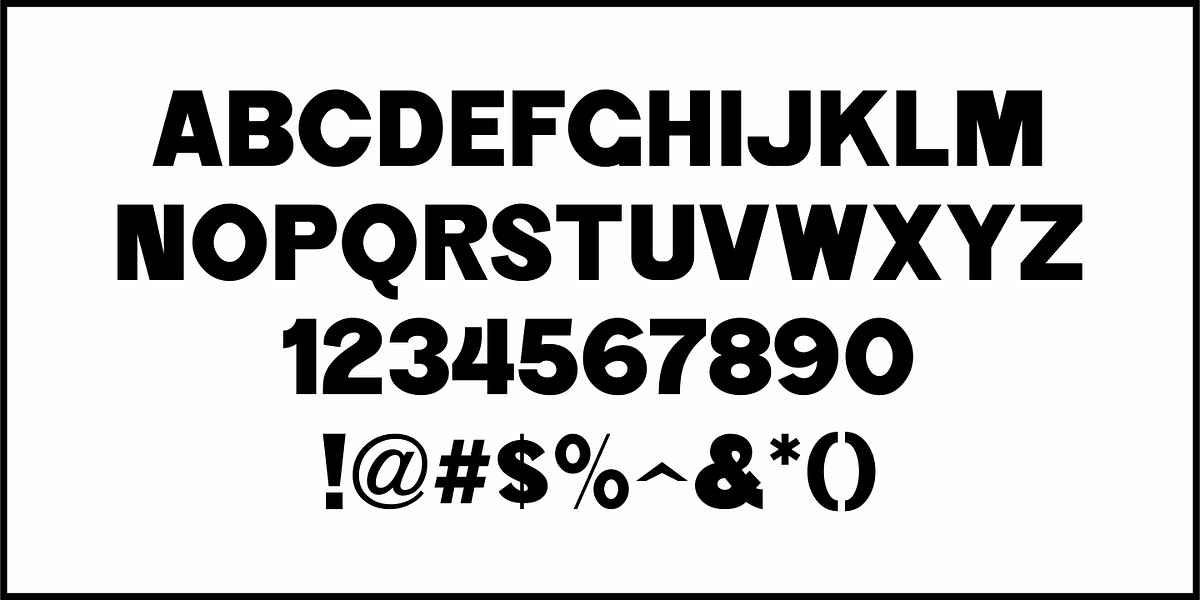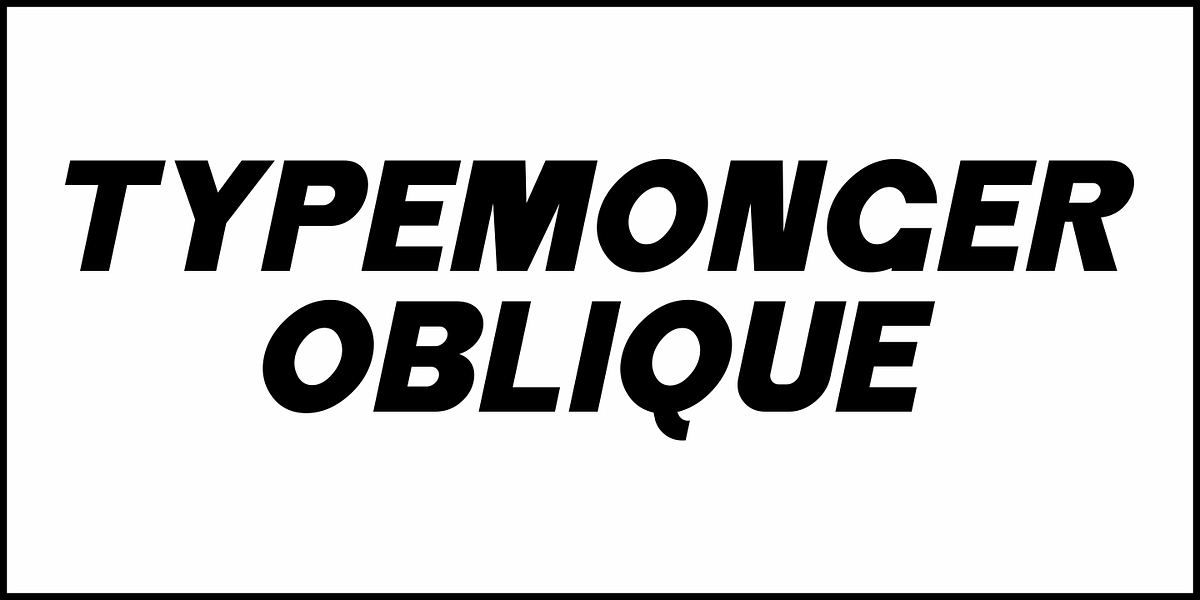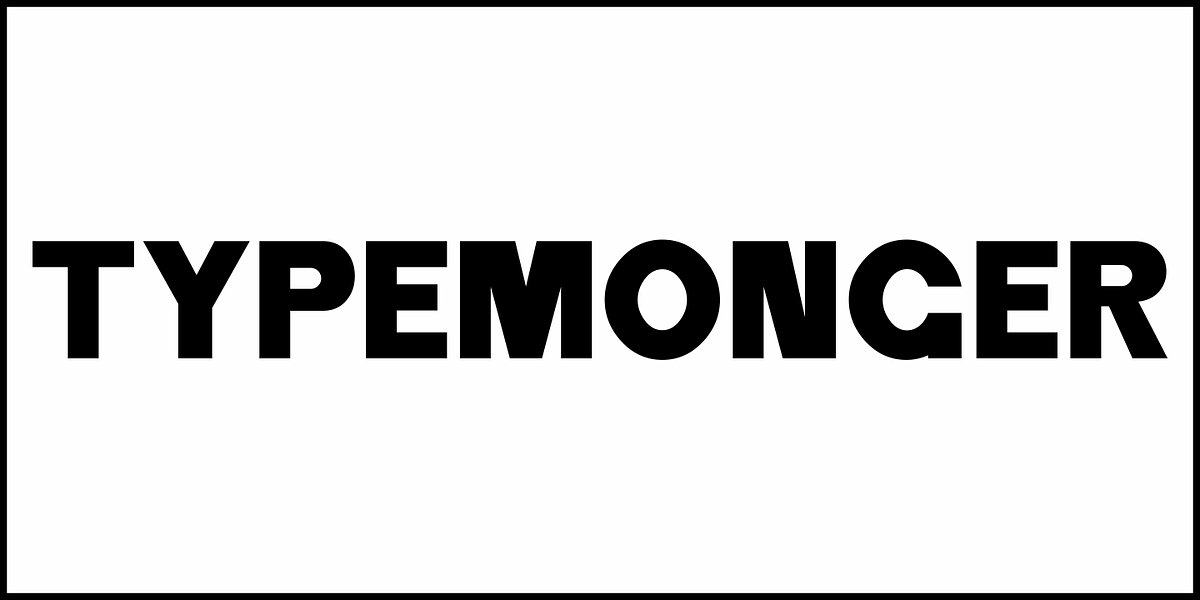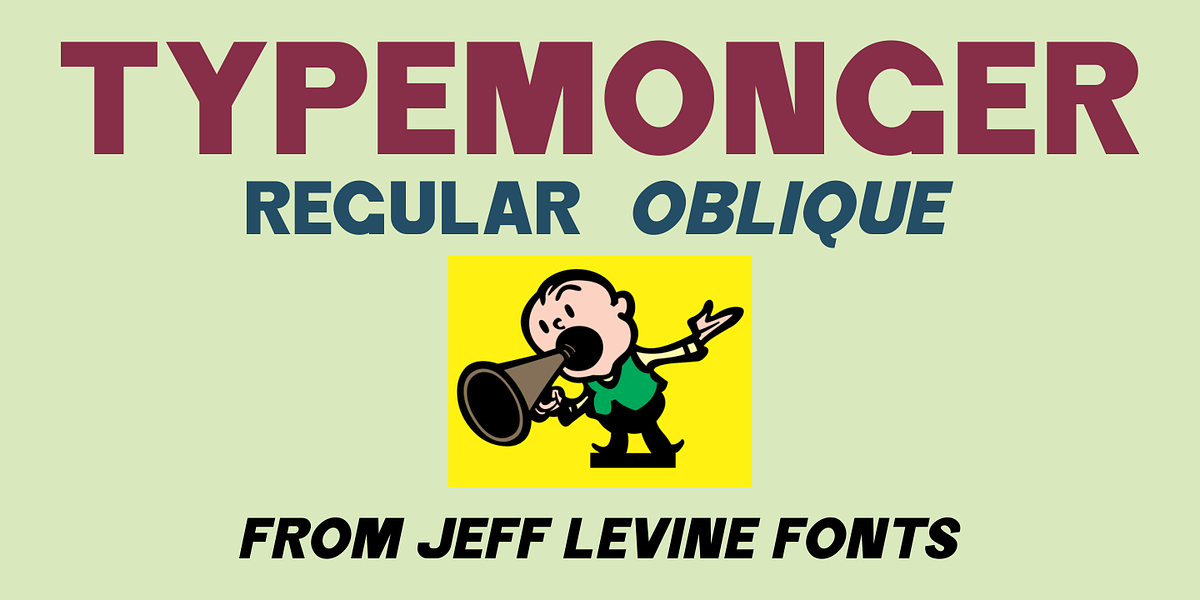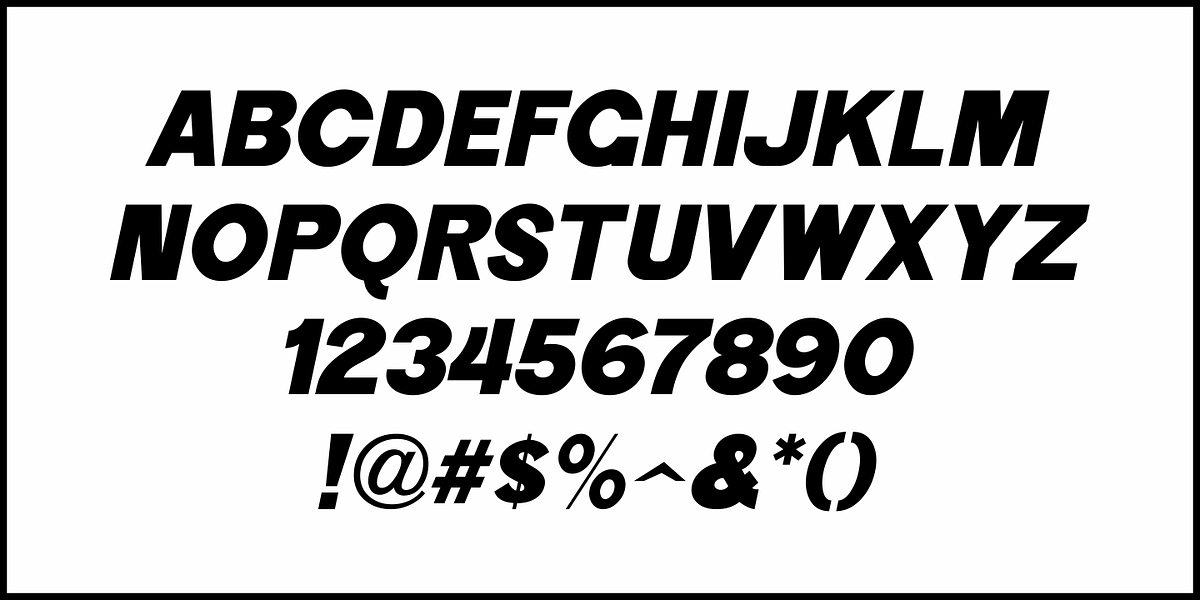
Typemonger JNL
Typemonger JNL is based on Two Line Sans Serif from the British type specimen book of Vincent Figgins (circa 1860), and is available in both regular and oblique versions.
The word ‘monger’ is an old term for a merchant specializing in a certain commodity (such as printing type).